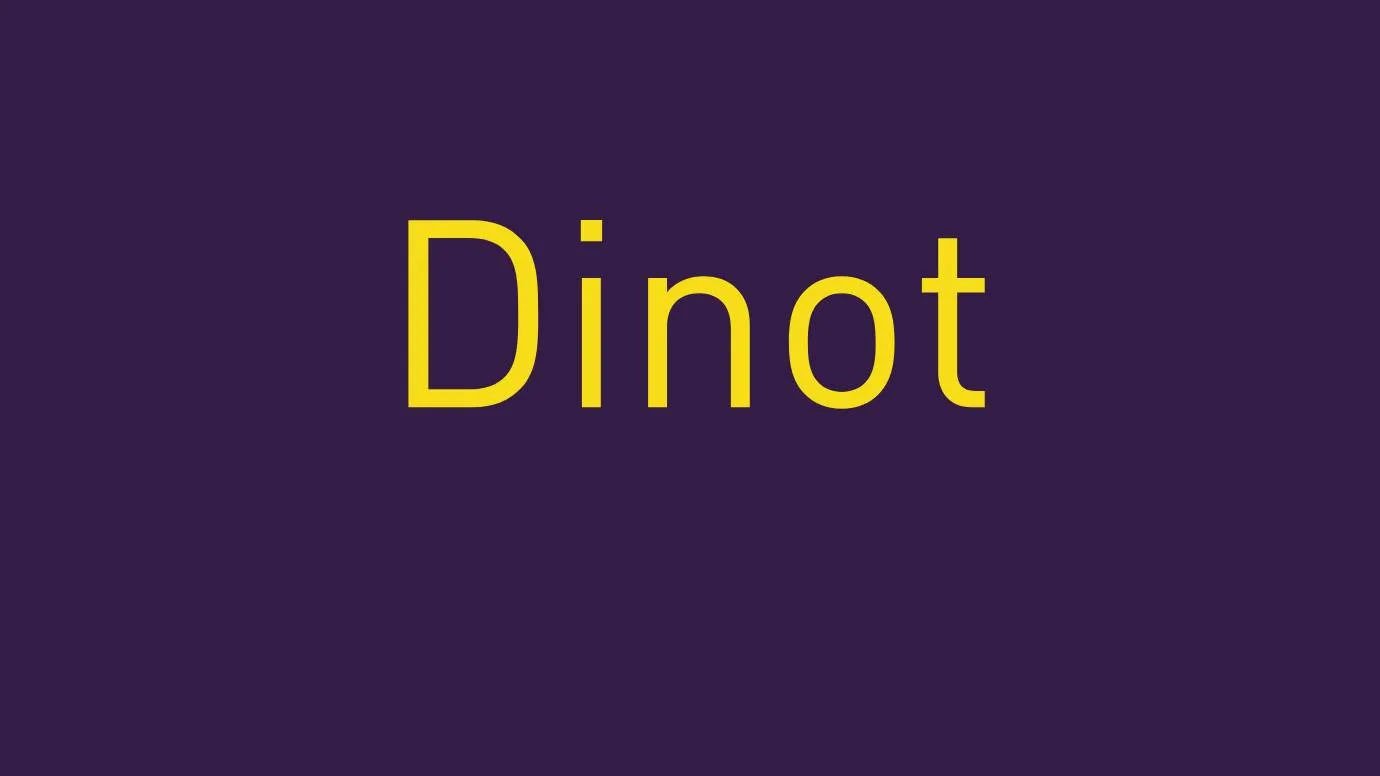
Dinot is recognized for its sophisticated appearance as a sans serif font. It features smooth, polished, and carefully designed letters with appropriate spacing between characters, making it ideal for brief paragraphs.
The design and launch of this font were carried out by Albert Jan Pool. Its characters boast remarkable textures, with suitable widths and a slight increase in height, enhancing its professional appeal.
Dinot Font Family